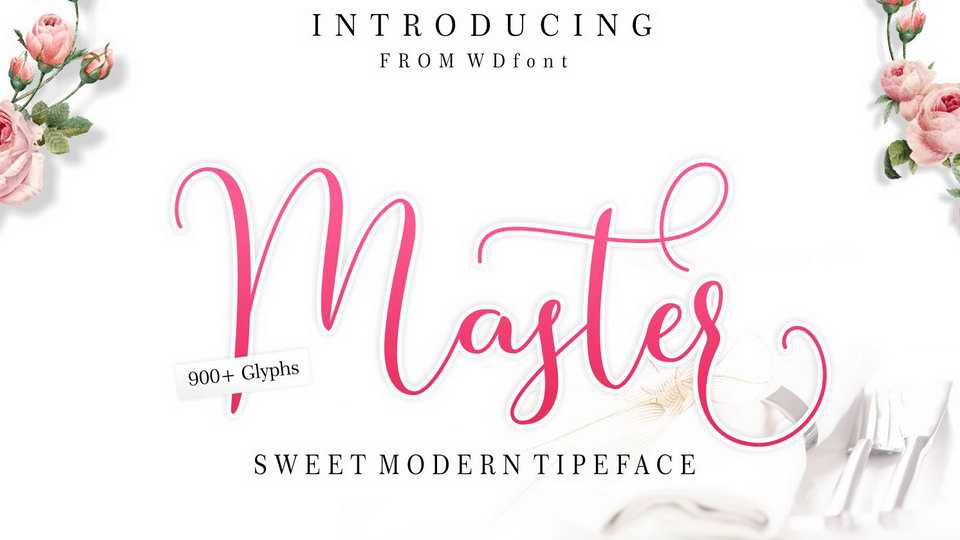
Download Master Script, a lovely romantic font which can be paired perfectly. It has a striking and elegant style, and is perfect for creating unique designs.